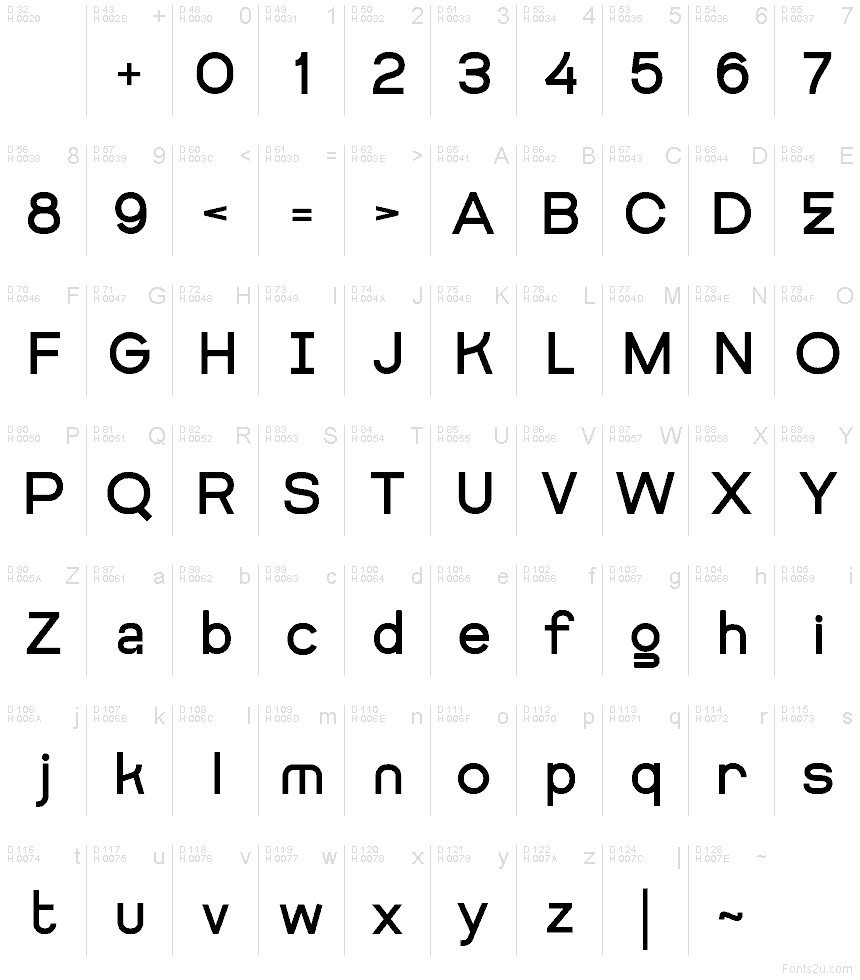
Getboreg Trial Only
Getboreg font by ffeeaarr is a free geometric rounded sans serif typeface. Its personality comes from smooth circular forms and clean sliced cuts that keep each letter crisp, never mushy. Strokes feel even and quiet, yet the shapes have bounce—those soft curves and tidy apertures give it a friendly, modern snap that reads fast on screen.
Using Getboreg, you get headlines and wordmarks that feel approachable without losing a tech-forward edge. This free font shines on app splash screens, startup branding, posters, packaging, social media graphics, and wayfinding where clarity matters. Keep tracking modest at large sizes to let the curves breathe, and pair it with a neutral humanist sans for body copy to keep the overall voice consistent.